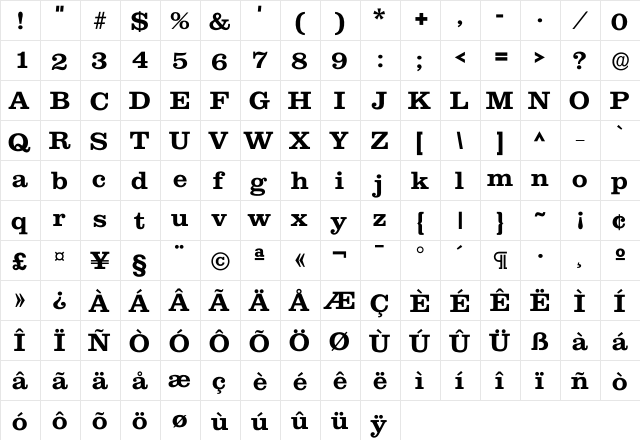
Clarxndon DemiBold Font Preview
Clarxndon DemiBold
Clarxndon DemiBold Font Details
Design Context for Clarxndon Typeface
Clarxndon offers clean, dependable letterforms without strong stylistic allegiance, making it a practical choice for designers who need flexibility. Its bold stroke weight gives it real presence on the page.